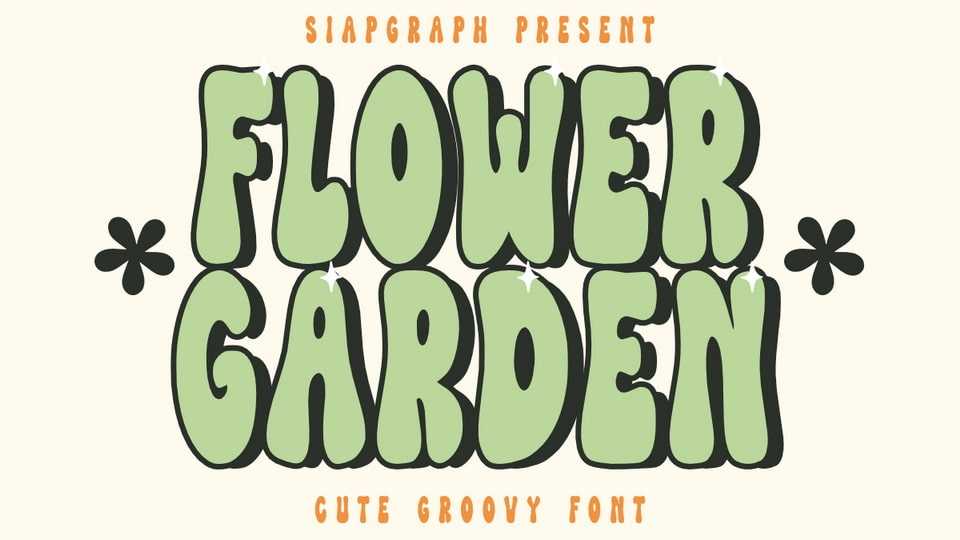
Download Flower Garden font, a cute and groovy display typeface with bold, bubbly letterforms and a fun retro aesthetic. Its thick, rounded shapes and playful curves bring a cheerful, flower-power vibe to any design.
Designer: SiapGraph